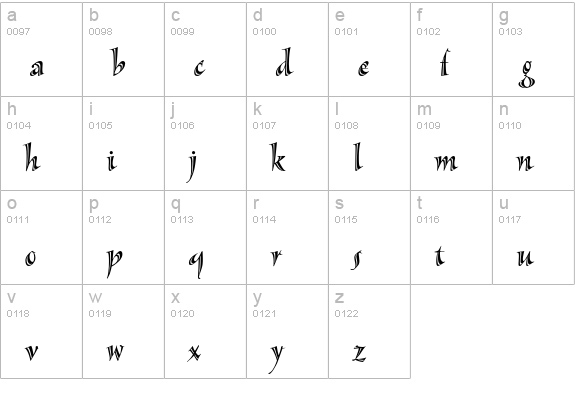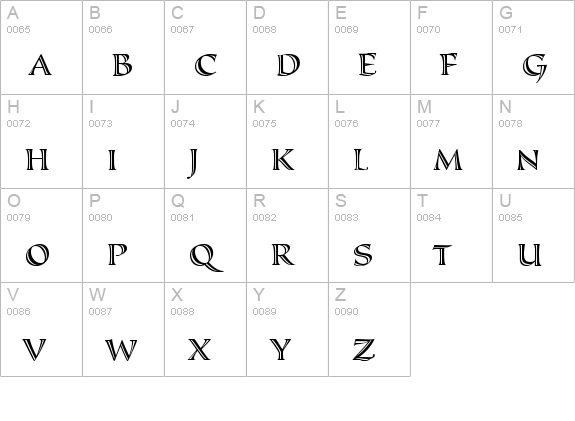
Introducing Sassafras Roman, a timeless and sophisticated font that exudes elegance and charm. With its graceful and delicate letterforms, Sassafras Roman adds a touch of sophistication to any design project. This font is perfect for invitations, wedding stationery, logos, headlines, and more. Its versatility allows it to be used in both print and digital media, making it a go-to choice for designers looking to add a touch of class to their creations. What sets Sassafras Roman apart is not only its stunning aesthetics but also its accessibility. Unlike many premium fonts, Sassafras Roman is available for free download at FontsMarket.com. This means that you can bring a touch of luxury to your designs without breaking the bank. Whether you're a professional designer or a DIY enthusiast, Sassafras Roman is a font that will elevate your work to new heights. So why wait? Download Sassafras Roman today from FontsMarket.com and start creating stunning designs that leave a lasting impression.